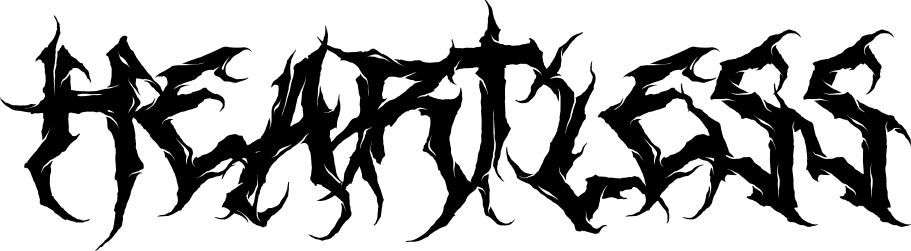
Heartless Font
Horror fonts usually bring a rough and raw font to your writings and Heartless is no exception. It contains a set of all-caps alphabetical letters and some of its characters may be unreadable.
You can use them for Western and scary movies, books, plays, event flyers and banners, gaming titles, and informal headlines. Heartless does not have a numeric set.